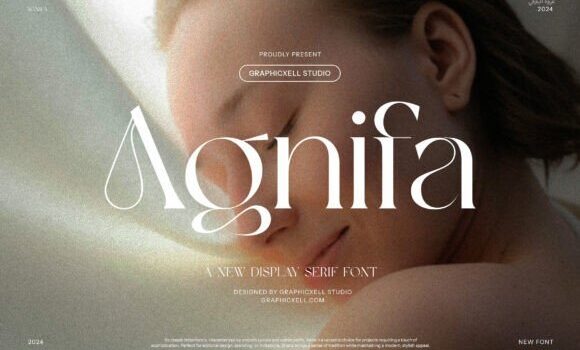
agnifa
Agnifa Font – Free Download Introduction to Agnifa Font Agnifa is a sophisticated ligature serif from us. 📸 Preview Gallery 6 images 📌 Product Name Agnifa Font 👤 Author Graphicxell 📂 Category Explore ⬇️ Download Agnifa Font FREE Free Download